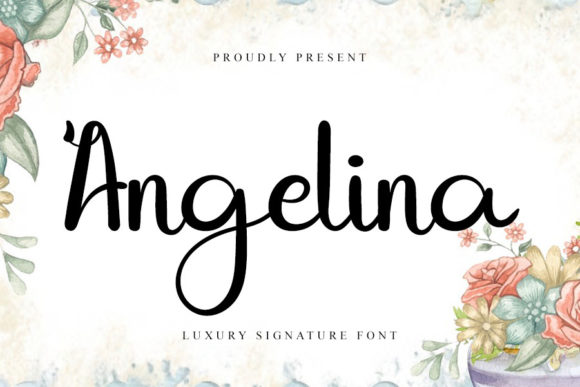
The Designer’s Delight: Angelina Font
I’ll never forget the moment I stumbled upon the Angelina font while working on a project for a client who wanted a stylish, yet timeless look. I had been searching for hours, trying out font after font, but nothing seemed quite right. That was until I saw Angelina – with its elegant, handwritten strokes and impeccable form, it was love at first sight! 💕
As a designer, I’m always on the lookout for fonts that can elevate my projects and make them stand out. And let me tell you, Angelina does just that. In this article, I’ll be sharing my honest review of the font, a practical guide on how to use it, and some similar fonts you might love.
Angelina Font: An Honest Review
- ✅ Beautifully crafted, handwritten strokes with a contemporary atmosphere
- ✅ Balanced and varied, not too thin or too thick
- ✅ Inspired by timeless classic calligraphy, giving it an elegant feel
- ✅ Perfect for a wide range of projects, from branding to invitations and more
- ⚠️ Some users might find the font a bit too script-like for certain projects
- ⚠️ Limited availability of certain OpenType features in older software
The Story Behind Angelina Font
According to the designer, Angelina font was inspired by the classic calligraphy of the past, with a modern twist. The goal was to create a font that was both elegant and approachable, perfect for a wide range of projects. And I think they’ve succeeded beautifully! 🎉
Q: Does Angelina font come with any OpenType features?
A: Yes, Angelina font includes a range of OpenType features, including stylistic alternates, glyphs, and more.
Q: Is Angelina font suitable for body text?
A: While Angelina font is beautiful, it’s best suited for headlines, titles, and short paragraphs. For body text, you may want to choose a more traditional font.